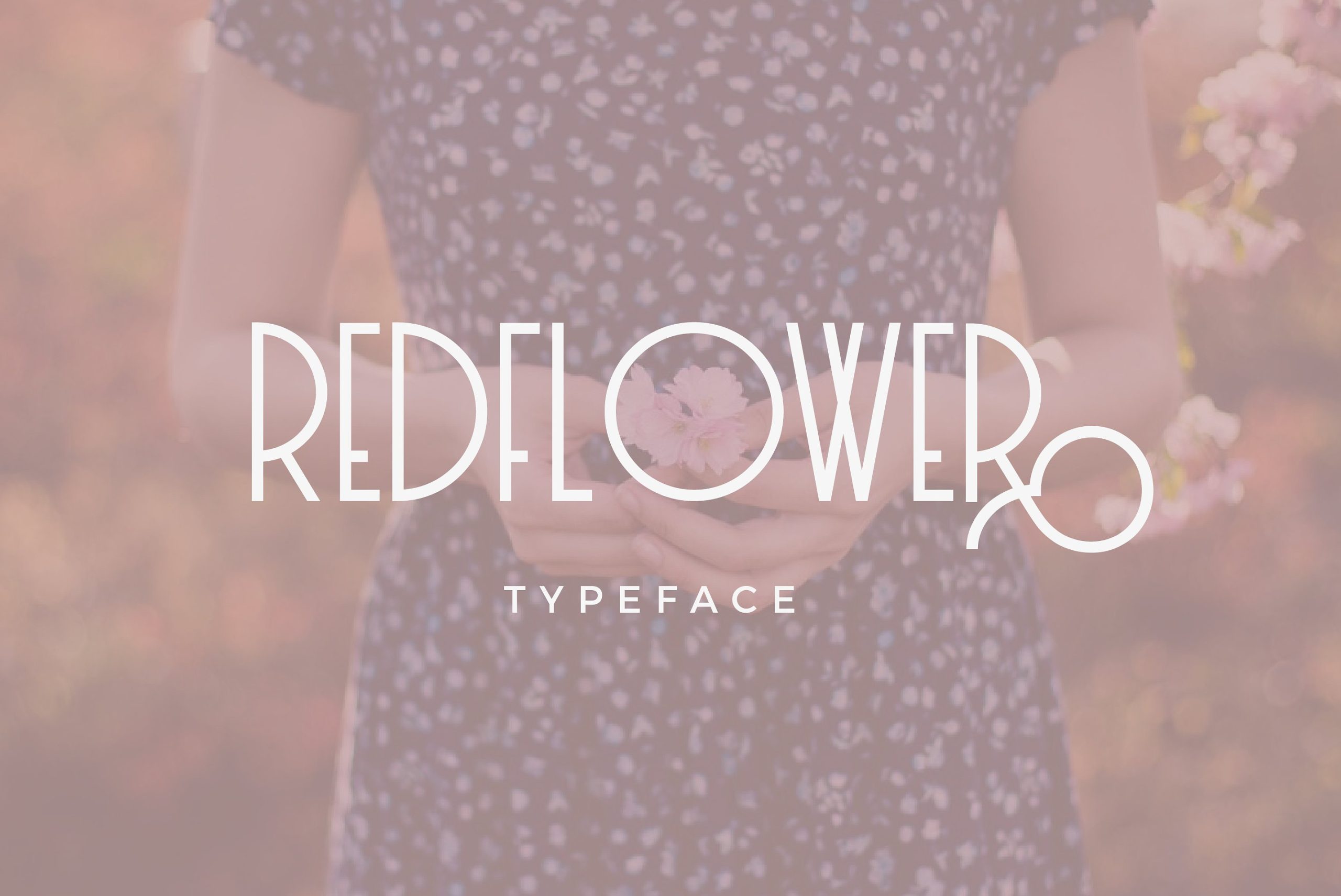
RedFlower Typeface
Introducing RedFlower Typeface! RedFlower designed by Type & Studio, this is a premium font, are sold on creativemarket, but it was great, it is free today for download. RedFlower Typeface the beautiful modern style, Minimalist, fresh, soft with consistent strokes, equipped with Multilingual, swash, fractions, catchword featured RedFlower suitable for logo, invitation, card, quote,header and many more